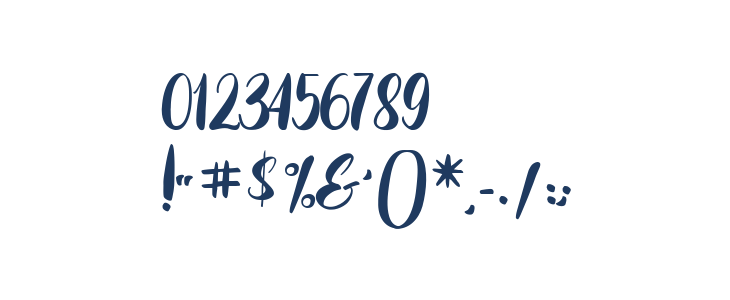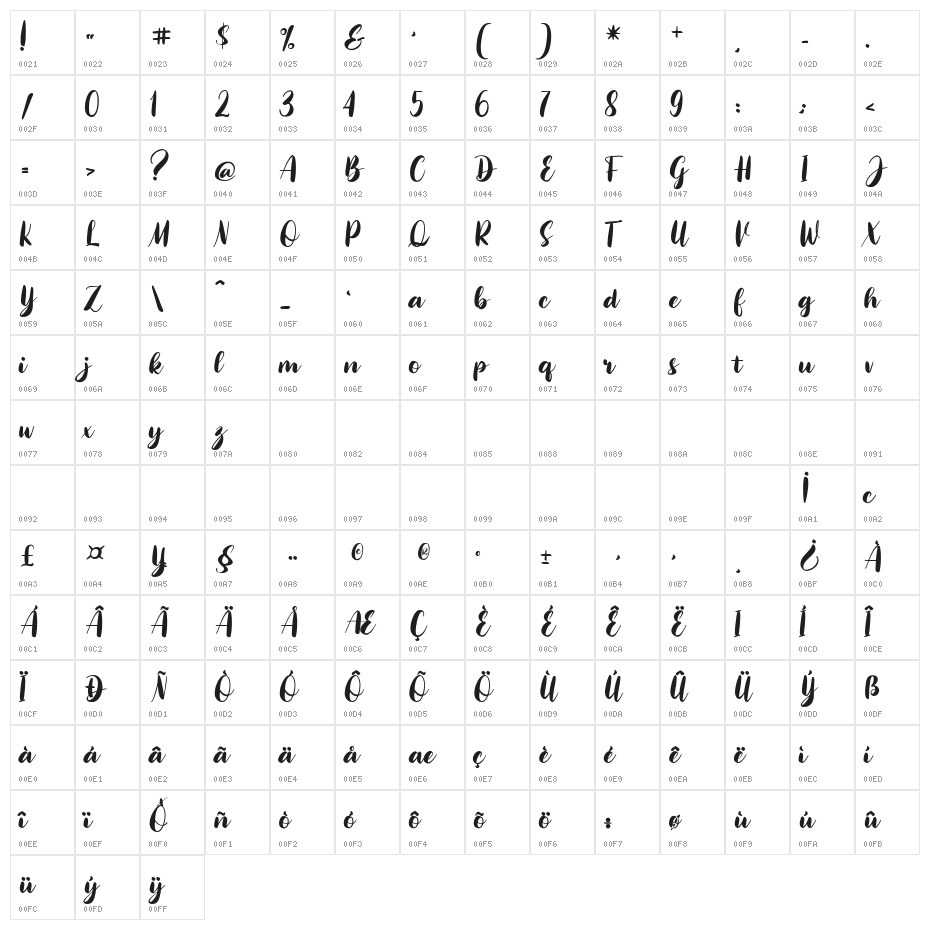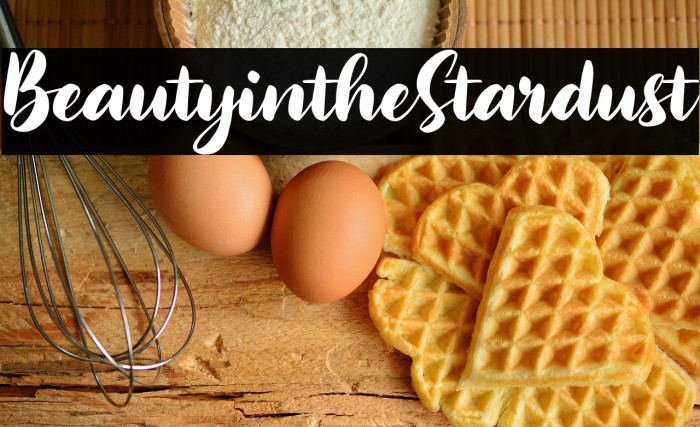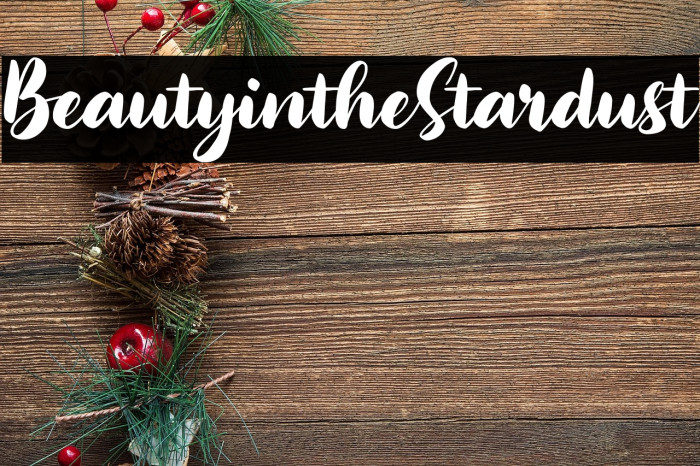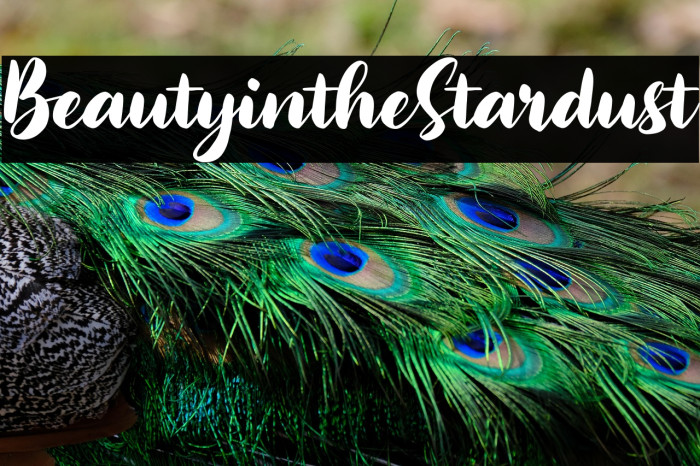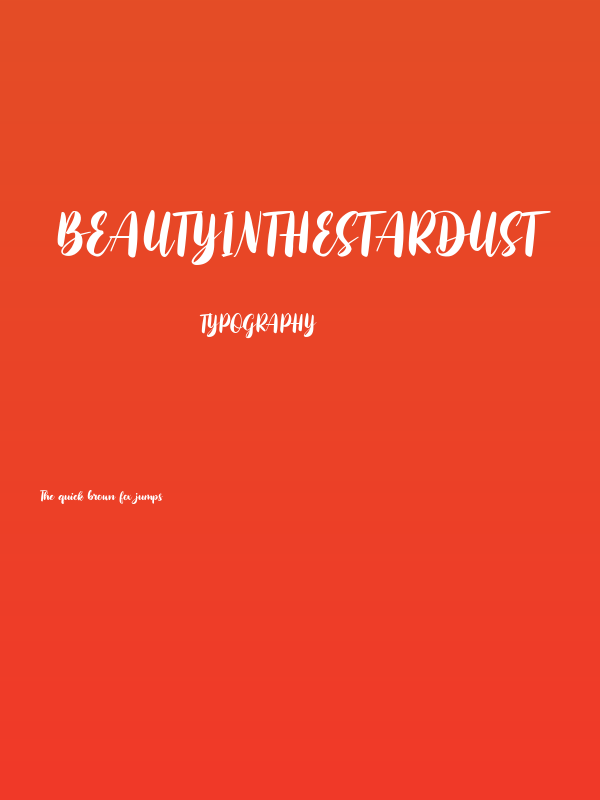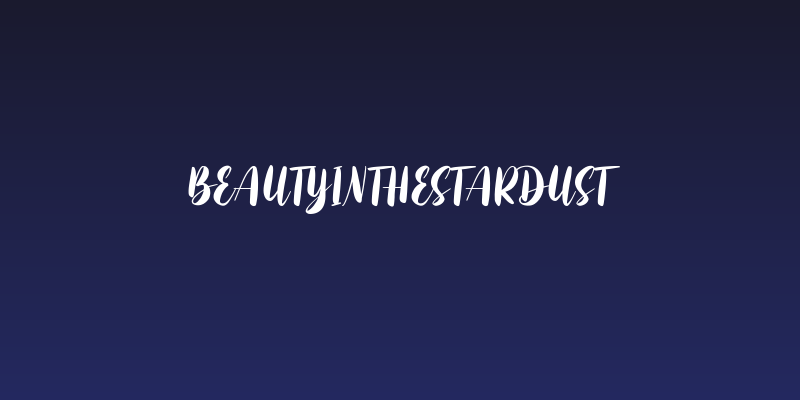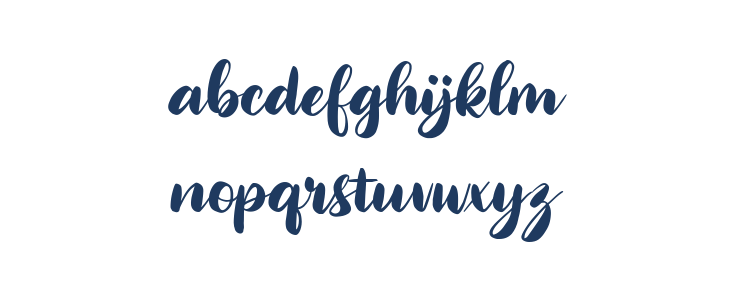
BeautyintheStardust Font
BeautyintheStardust Description
This font exudes a sense of elegance and fluidity, characterized by its script style with smooth, flowing lines and a handwritten touch. The uppercase letters are bold and slightly slanted, giving a dynamic and lively appearance. The lowercase letters maintain a consistent style, with rounded forms and a natural, cursive flow. Numbers are clear and legible, matching the overall aesthetic. Special characters are creatively designed, adding to the font's decorative appeal. The strokes vary in thickness, providing a medium contrast that enhances readability while maintaining an artistic flair.
| Overall Style | Elegant, Decorative |
| Proposed Projects | Ideal for wedding invitations, greeting cards, branding projects, and elegant packaging designs. |